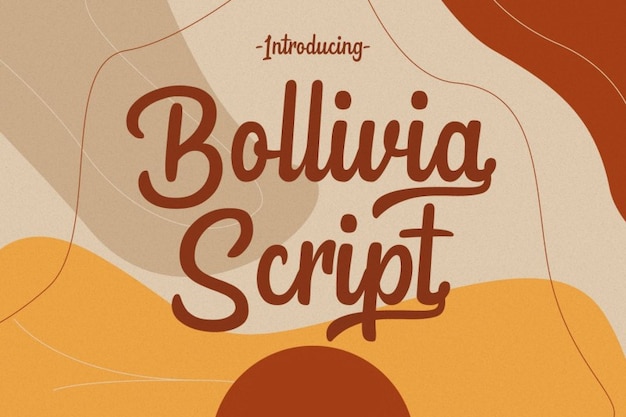
Bollivia Script Font
TypeTemp Studio
Bollivia Script is a font that radiates the charm of handwritten lettering, making your text feel irresistibly cute and endearing. Its characters are artfully crafted, evoking a sense of playfulness and whimsy that's perfect for a wide range of creative projects. Whether you're designing greeting cards, posters, or anything that calls for a personal touch, Bollivia Script adds a unique and heartwarming quality. Bollivia Script is where handwritten meets adorable, creating a delightful typeface that brings an extra dose of personality and loveliness to your designs.